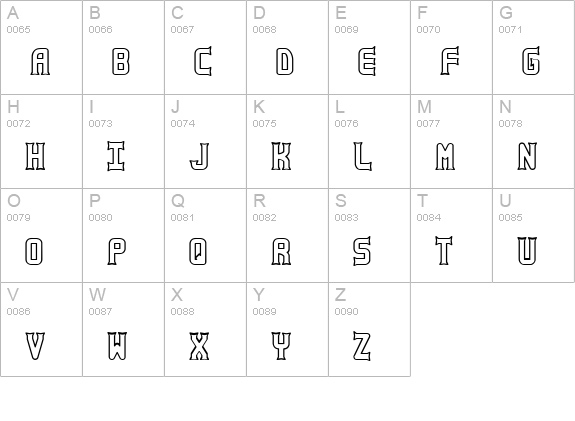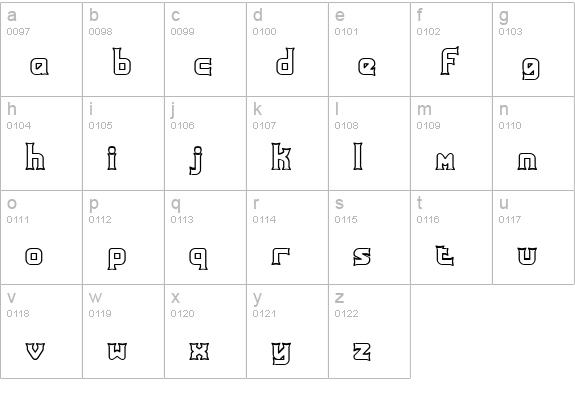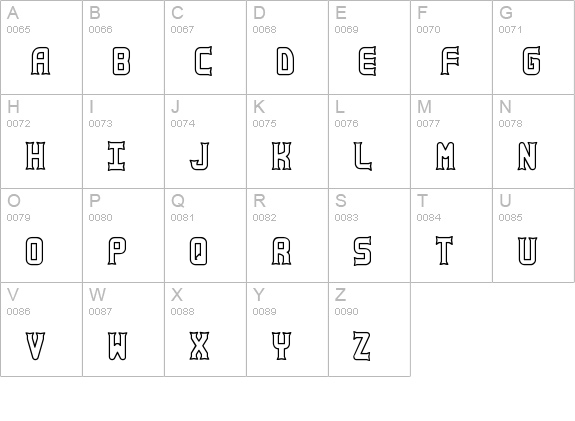
Ataxia Outline BRK font is a modern and stylish typeface that exudes a sense of creativity and sophistication. With its clean lines and geometric shapes, this font is perfect for adding a contemporary touch to any design project. The sleek outline style of Ataxia Outline BRK font makes it versatile and suitable for a wide range of applications, from branding and advertising to web design and print materials. What makes Ataxia Outline BRK font even more appealing is that it is available for free download at FontsMarket.com. This means you can easily access this unique font to elevate your projects without breaking the bank. Whether you're a designer looking to add a fresh look to your creations or a business owner wanting to give your brand a modern edge, Ataxia Outline BRK font is the perfect choice. Download it today and unleash your creativity with this stylish and versatile typeface.